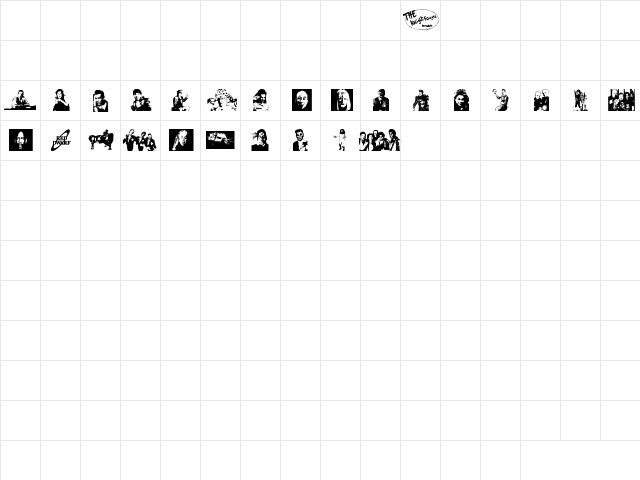
RED DWARF CHARACTERS Regular
Design Context for RED DWARF CHARACTERS Typeface
RED DWARF CHARACTERS is a composed and adaptable typeface that performs quietly and consistently across a wide range of design contexts.